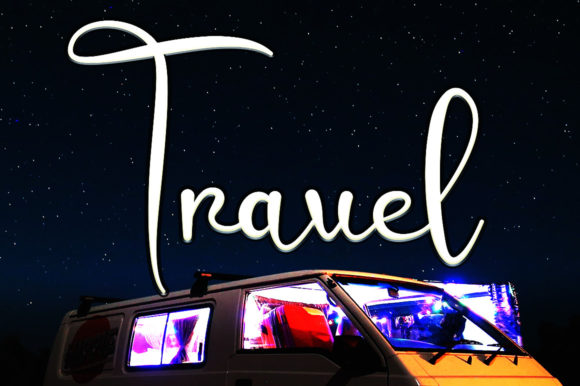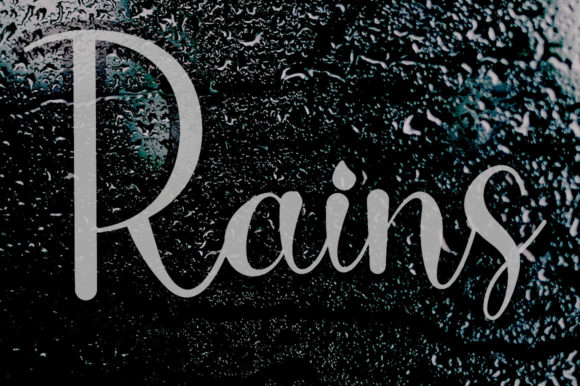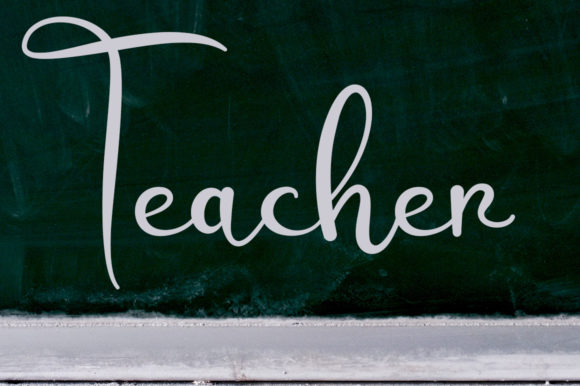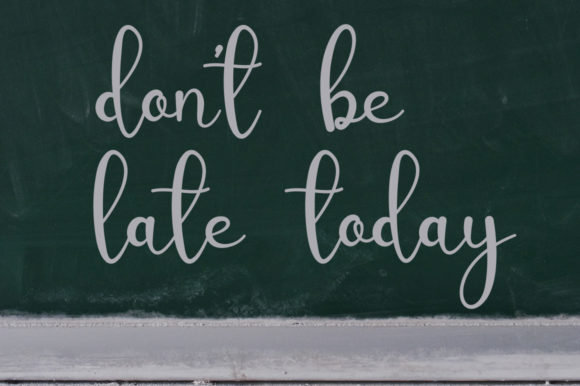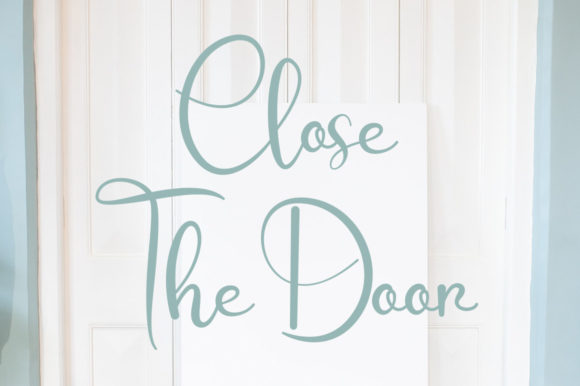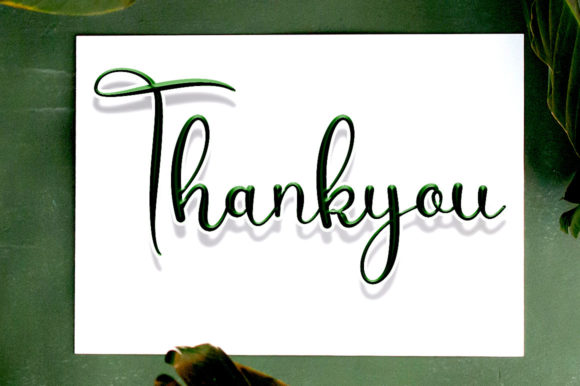
Siashe Font
About Siashe Font
Siashe is an alluring and graceful handwritten font. Its distinct and well balanced letters make this font a masterpiece. Fall in love with its incredibly versatile style and use it to create spectacular designs!